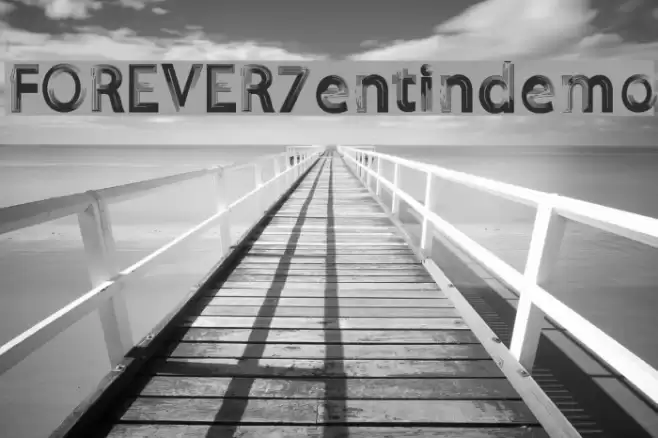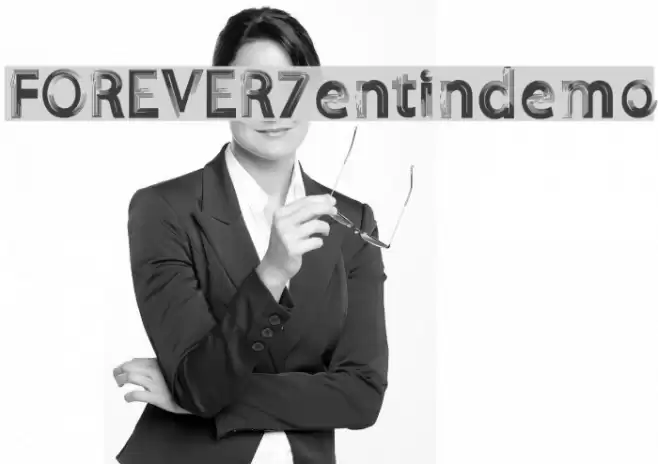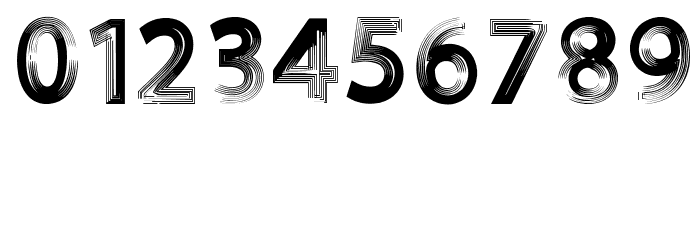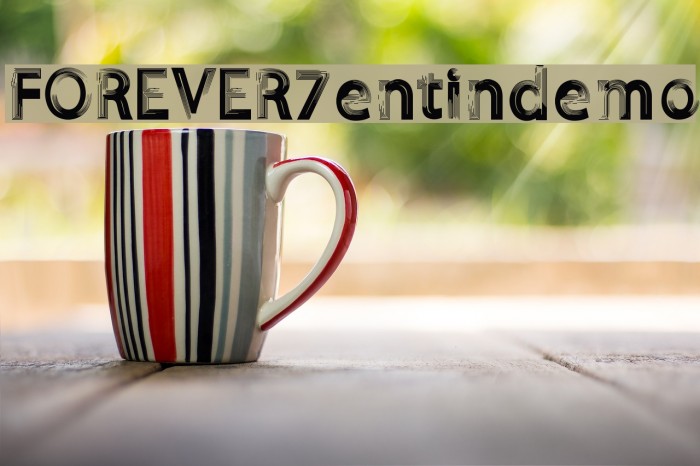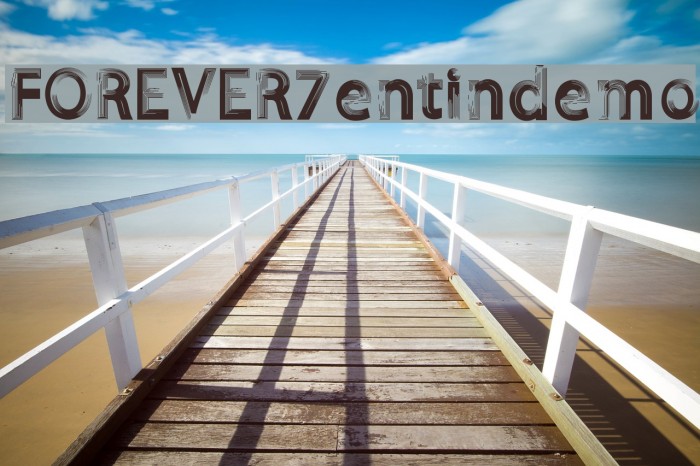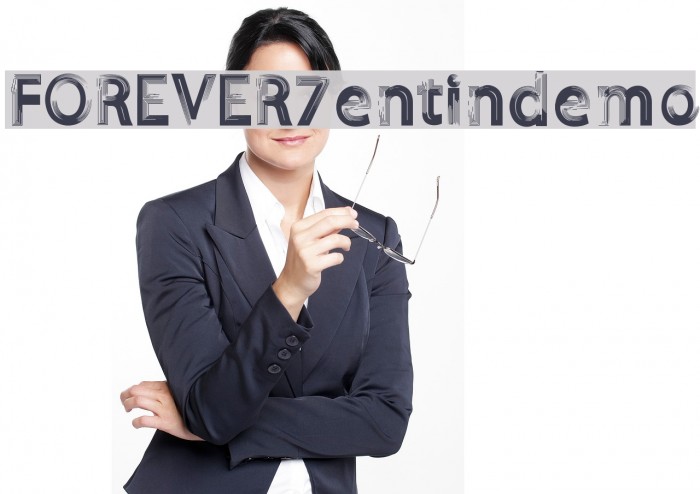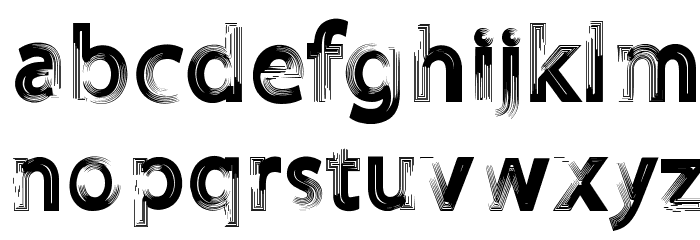
FOREVER 7entin demo Font
FOREVER 7entin demo Description
This font features a bold and dynamic design with a unique layered effect that creates a sense of depth and movement. The characters are constructed with thick strokes and intricate line patterns that give them a modern and artistic appearance. The uppercase and lowercase letters maintain a consistent style, while the numerals and special characters complement the overall aesthetic. The font's distinctive look makes it stand out, ideal for projects that require a strong visual impact.
A bold, layered font with a modern, artistic style from Uncategorized fonts.
- Proposed Projects: Ideal for posters, album covers, branding, and any project needing a striking visual element.